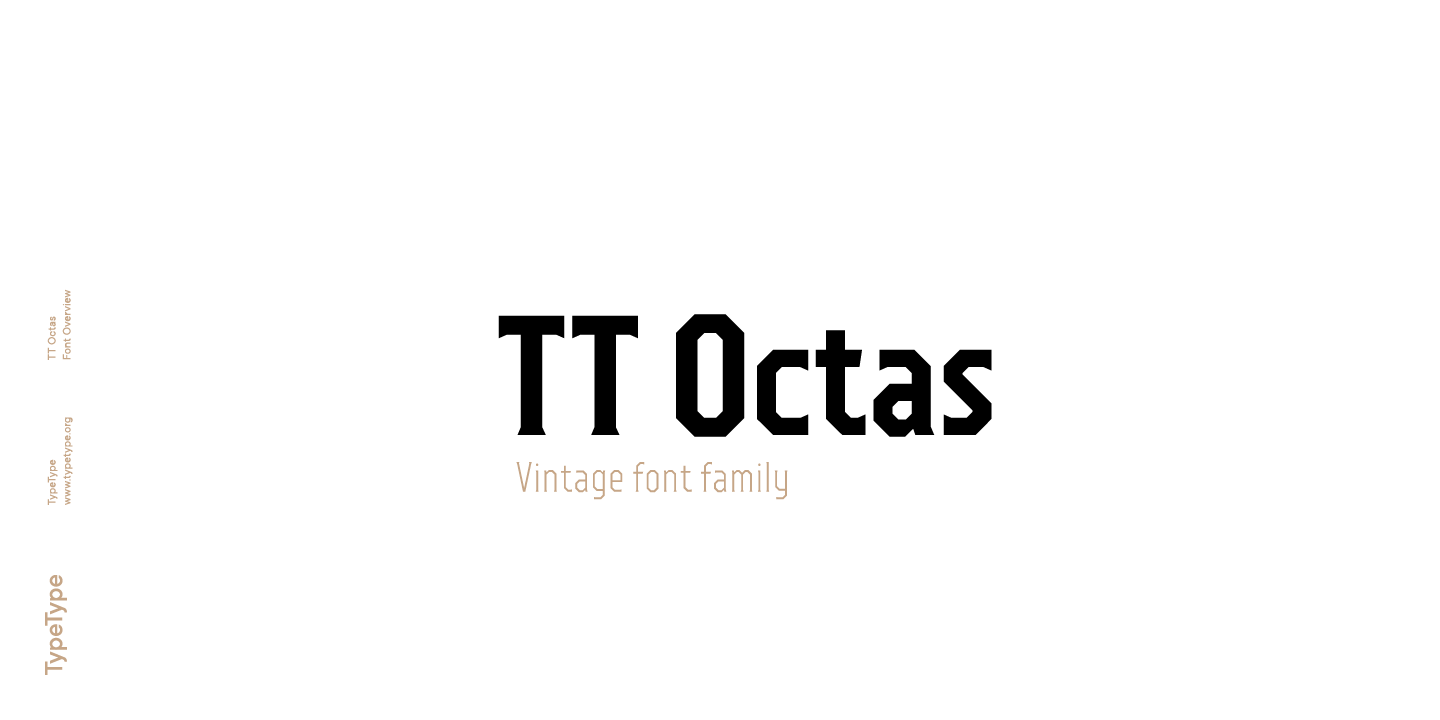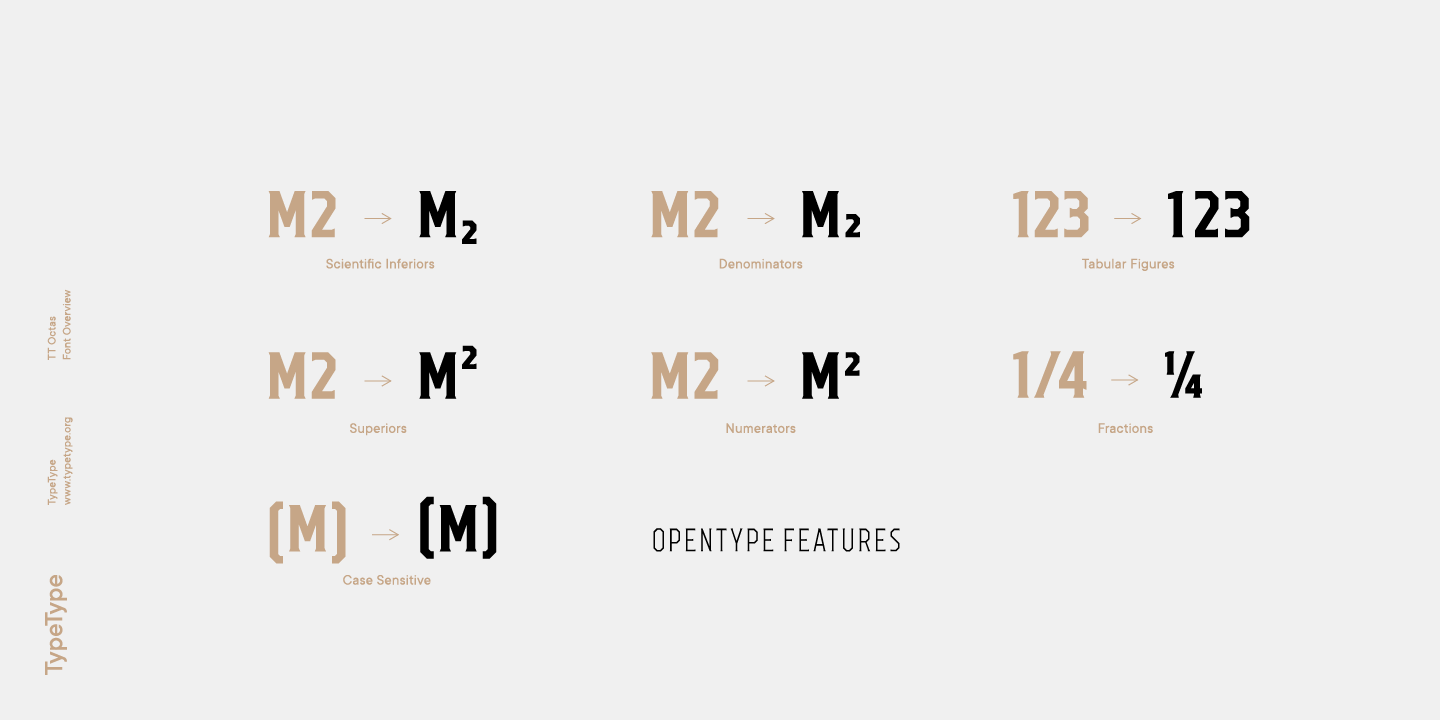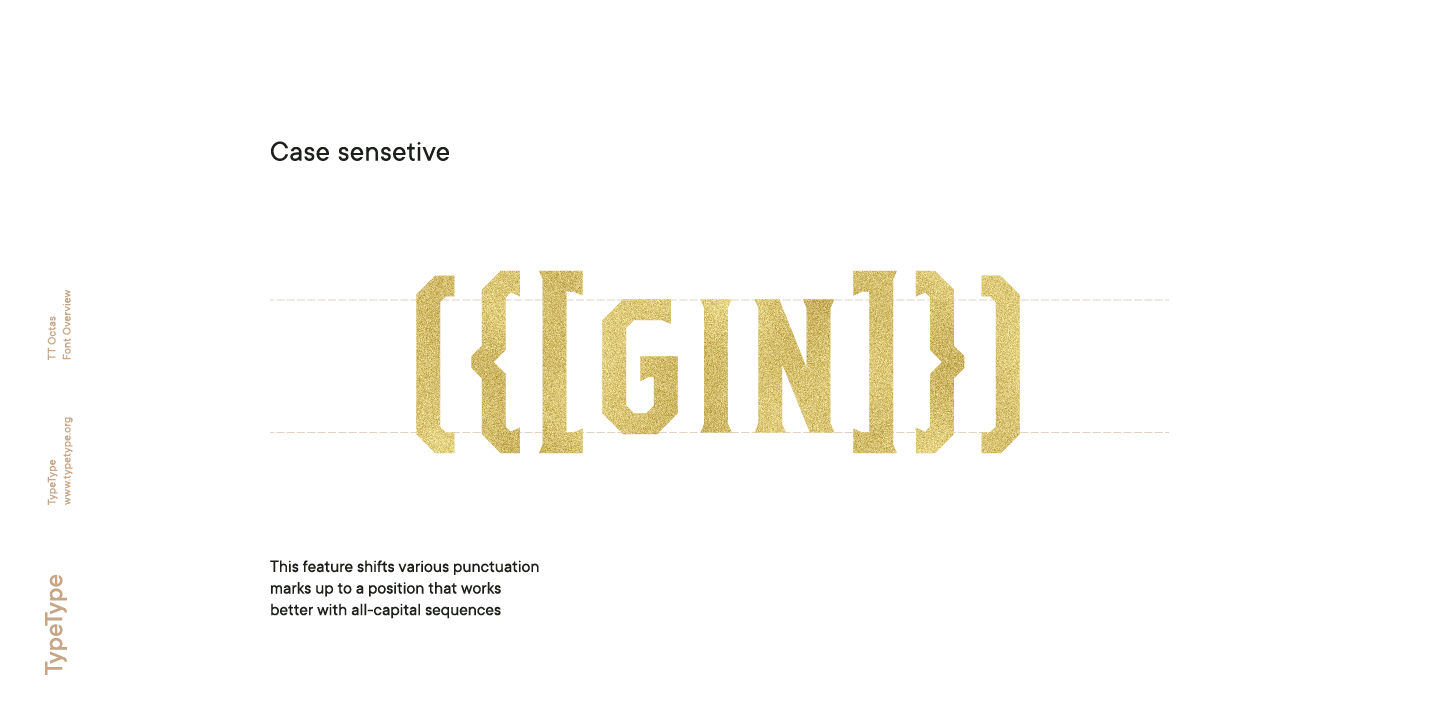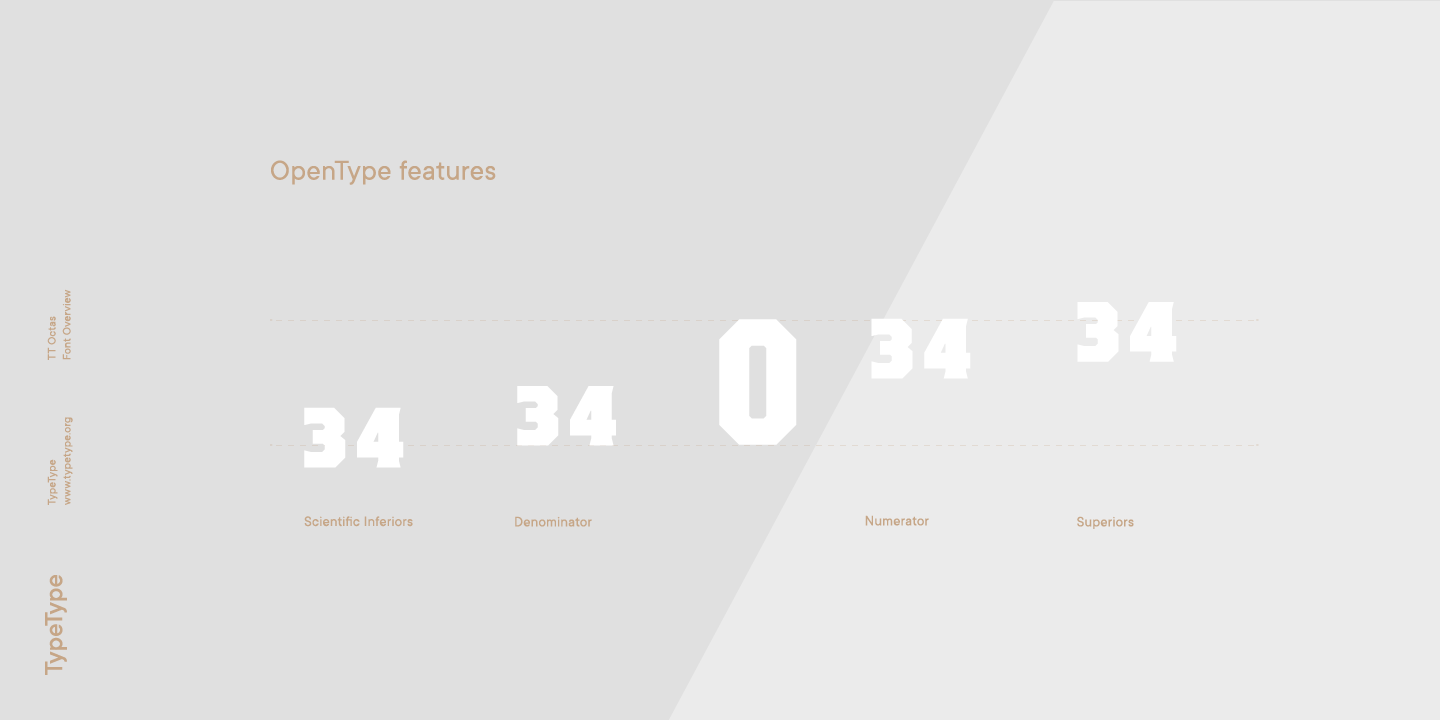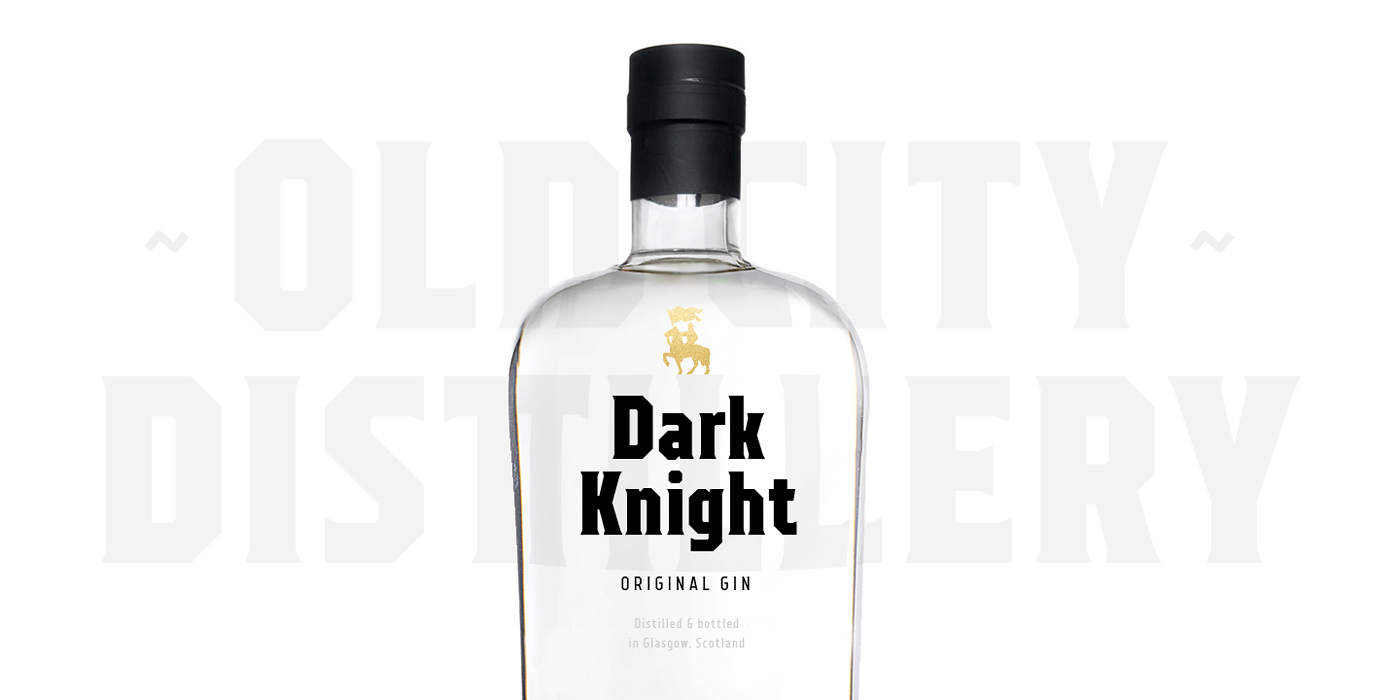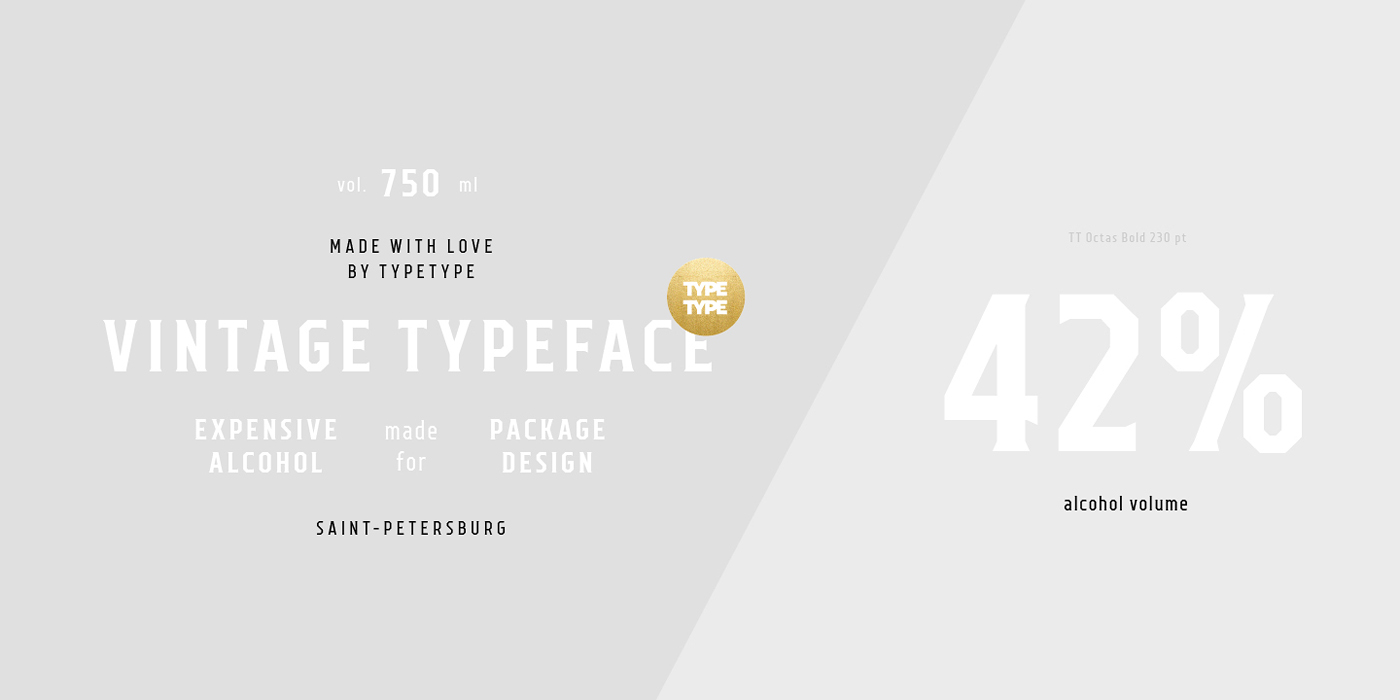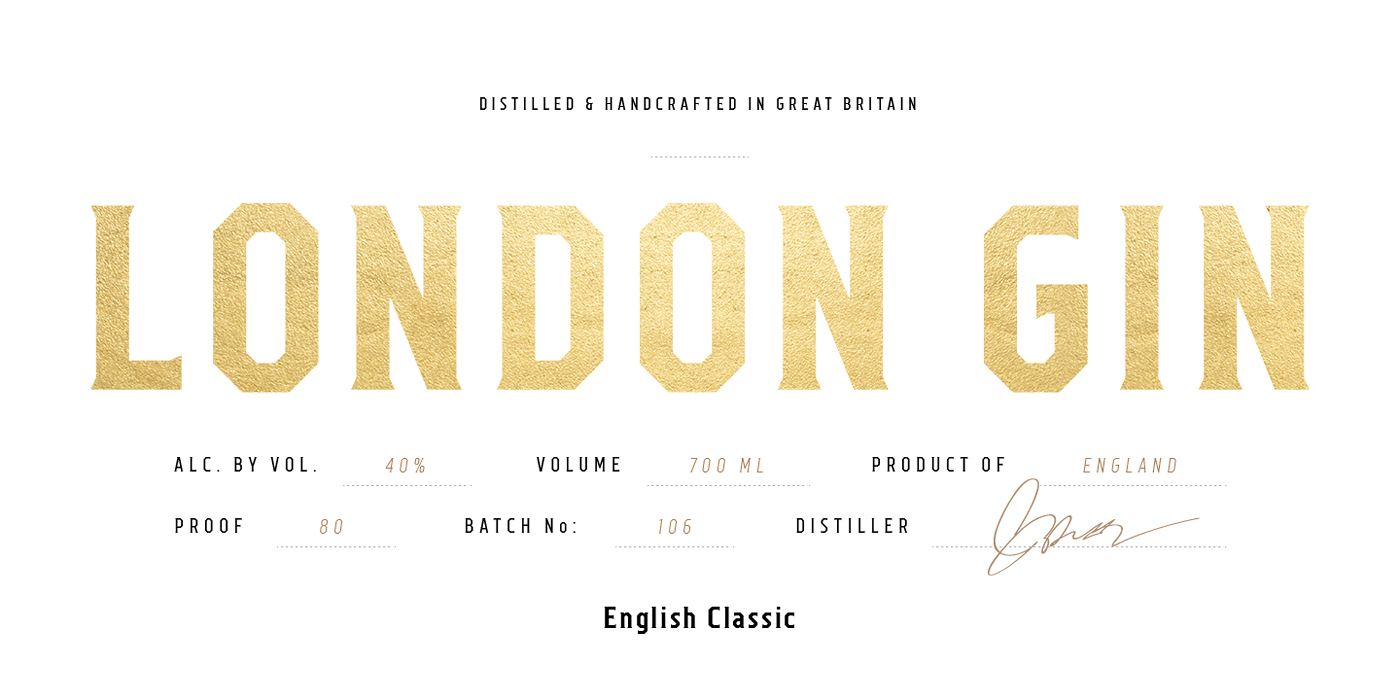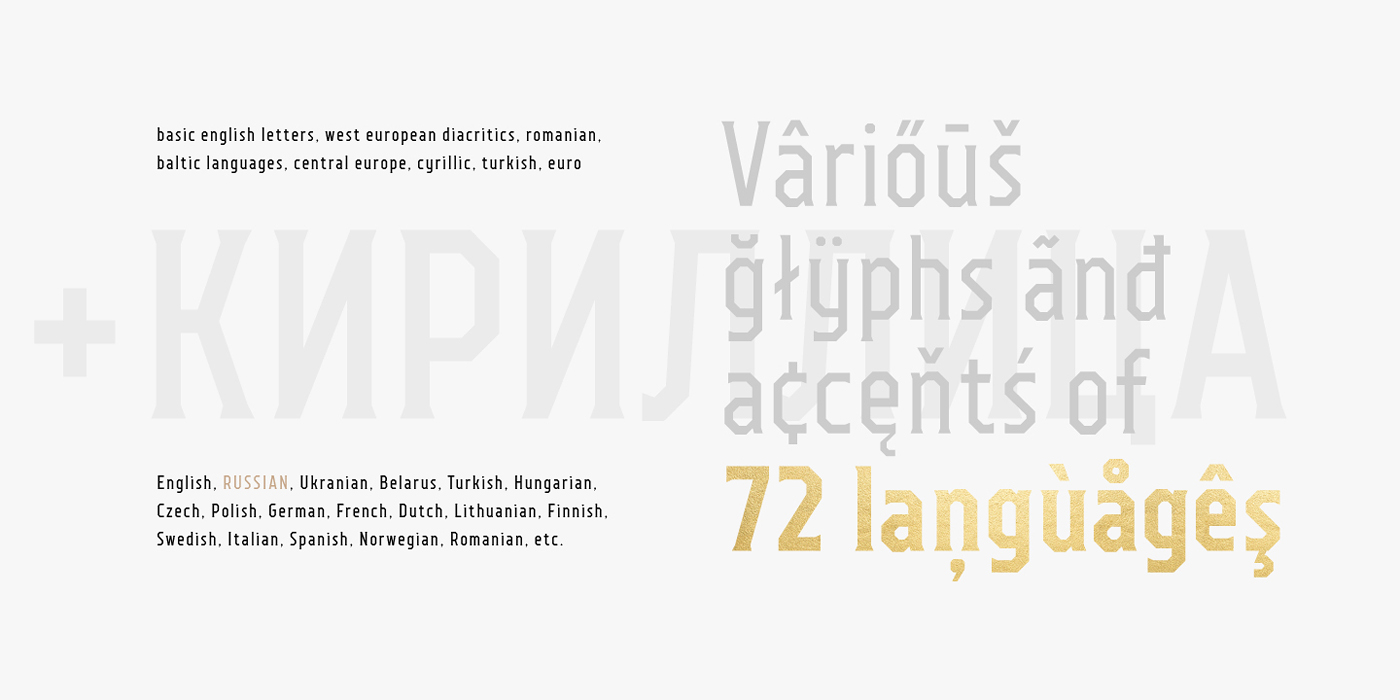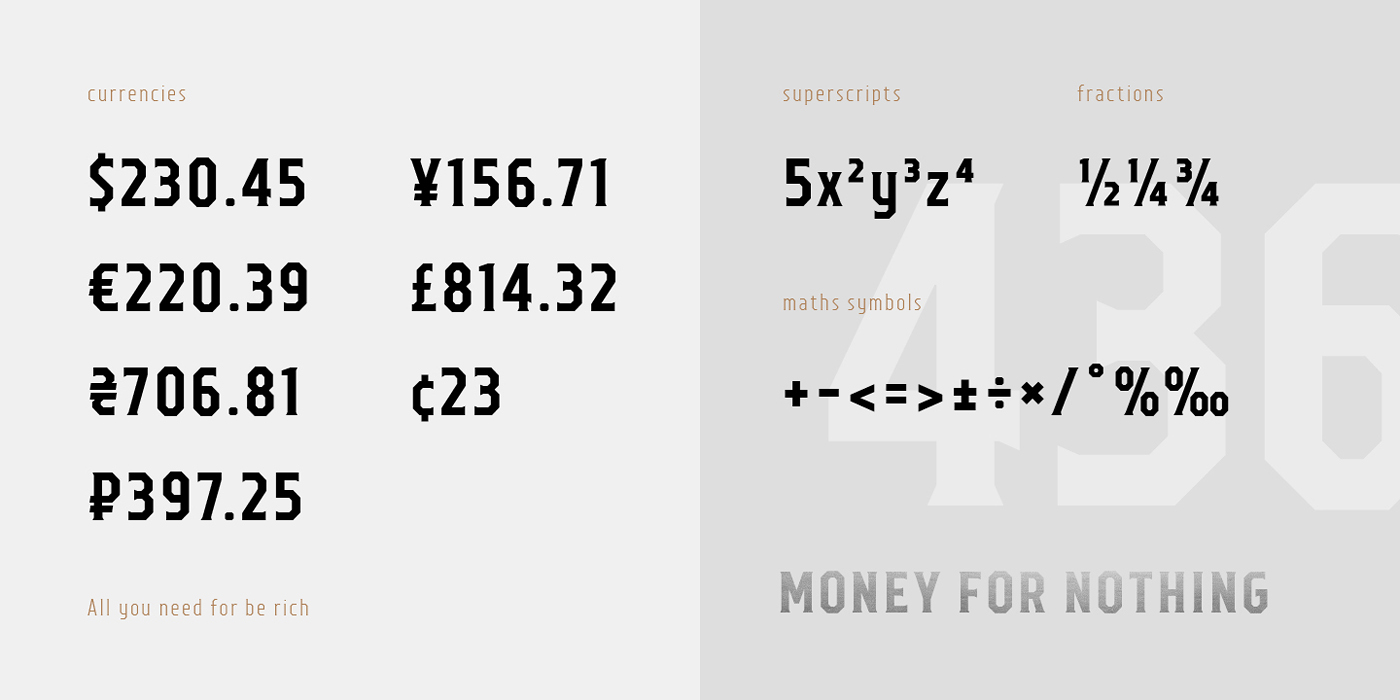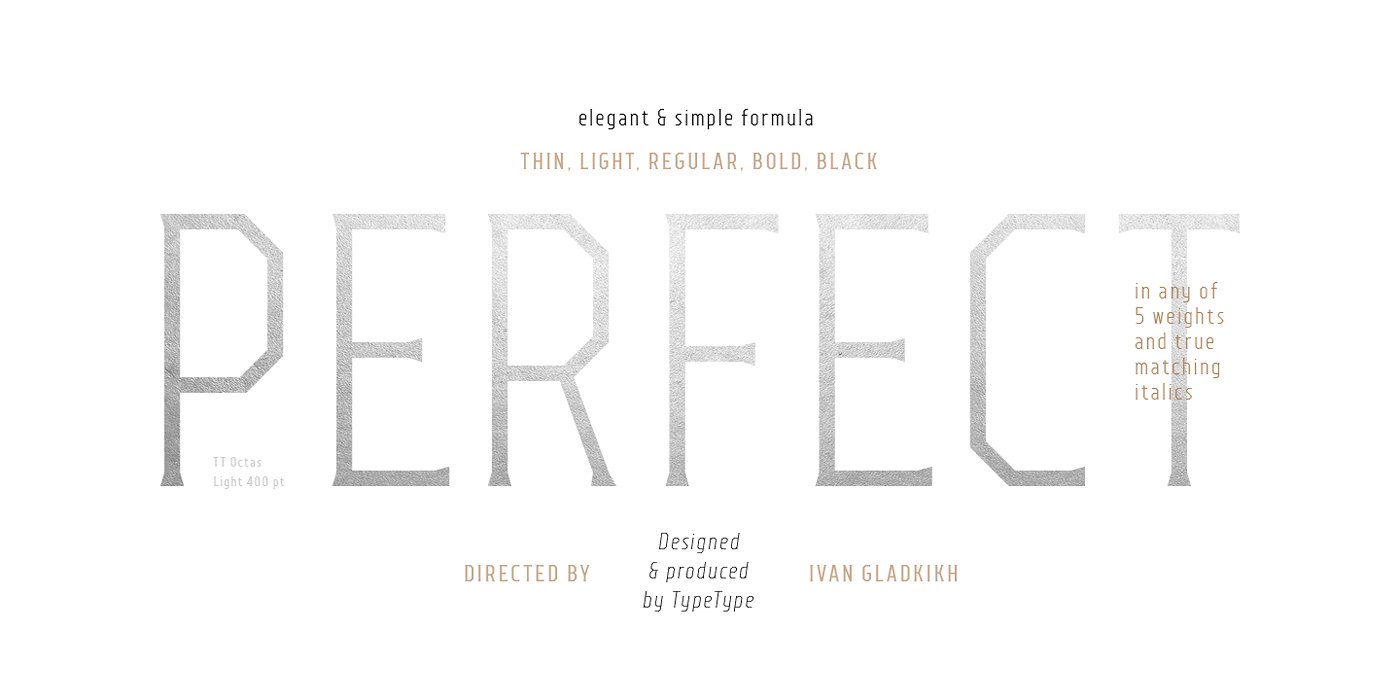
TT Octas
TT Octas is a narrow-proportioned octagonal typeface with subtle serifs that introduce vintage character and uniqueness.
A narrowly proportioned font family
Simple depiction of the letters and the serifs make the family easily readable even in the smallest sizes. Narrow proportions allow for positioning of large text arrays even in small text fields. This font family is well fitted for brand visual identity and product labeling as well as for all digital media, such as web interfaces and gameplays. It is also great for mobile apps’ interfaces.v
TT Octas built upon the principle of octagonal forms: all circles in this fontfamily are actually octagons
TT Octas has a saturated and vintage character to it
About font family TT Octas
160+ Language support
TT Octas is a narrowly proportioned fontfamily built upon the principle of octagonal forms: all circles in this fontfamily are actually octagons. Thanks to small serifs, TT Octas has a saturated and vintage character to it. Simple depiction of the letters and the serifs make the family easily readable even in the smallest sizes.
Narrow proportions allow for positioning of large text arrays even in small text fields. This fontfamily is well fitted for brand visual identity and product labeling as well as for all digital media, such as web interfaces and gameplays. It is also great for mobile apps’ interfaces.
Ivan Gladkikh
+ TypeType Team
OpenType features
case | Case Sensitive Forms
frac | Fractions
numr | Numerators
dnom | Denomerators